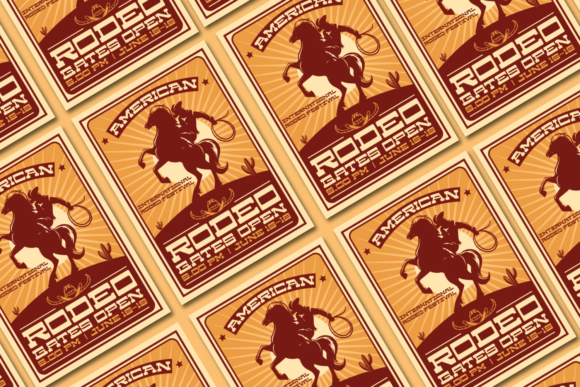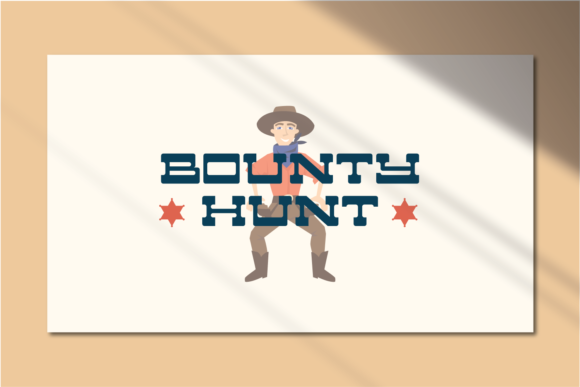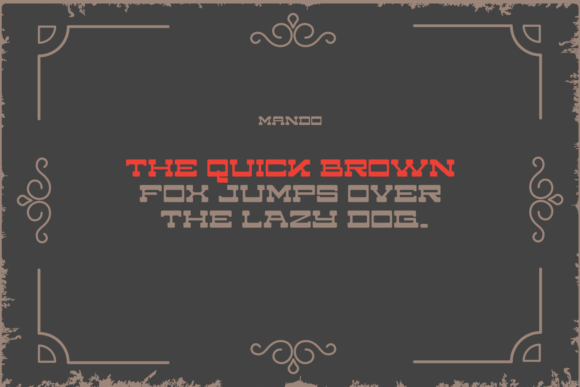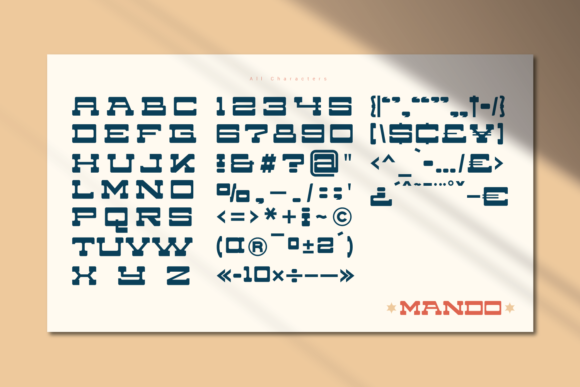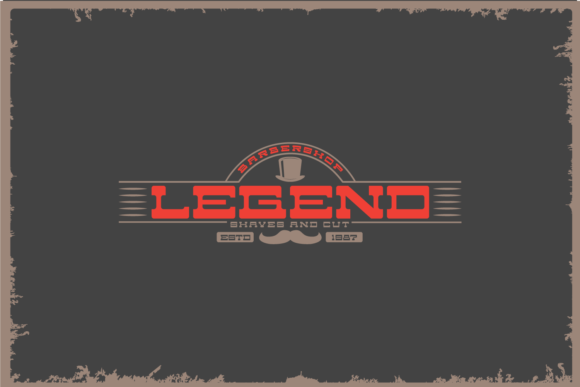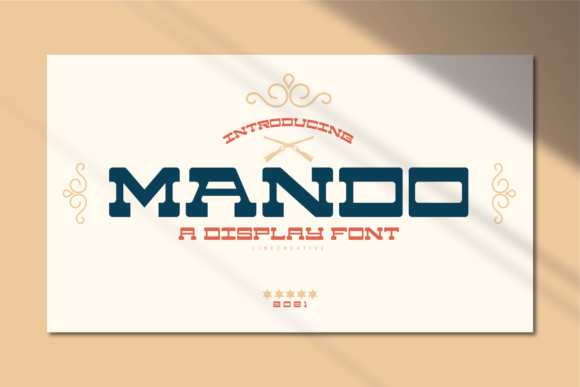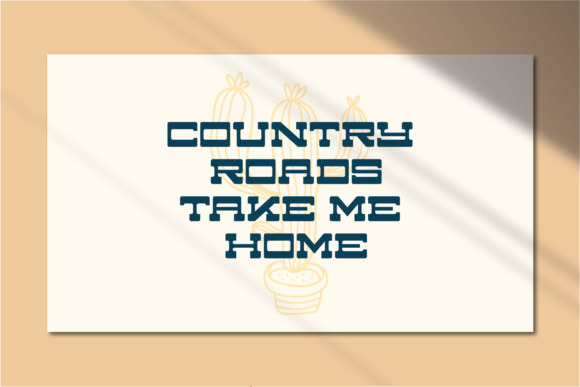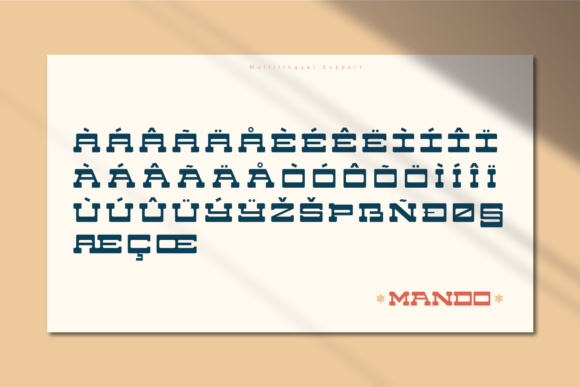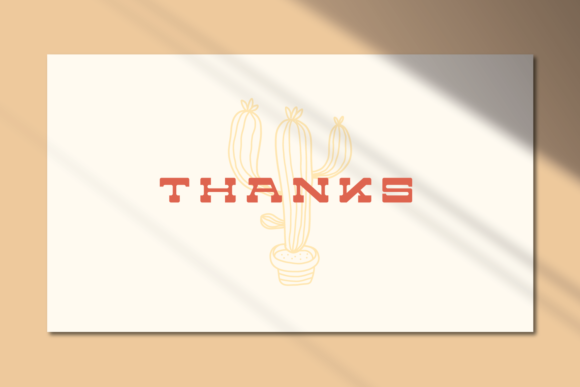
Mando
Mando: A Fun and Fancy Retro-Inspired Slab Serif Font
Mando is a distinctive slab serif typeface that combines fun and fancy elements with a unique retro western flair. This versatile font is designed to elevate a wide range of creative projects to the highest levels.
Key Features of Mando
• Fun Design: Features playful letterforms that add a lively touch to designs.
• Fancy Aesthetic: Incorporates elegant elements for a sophisticated look.
• Unique Weight Bar: Offers a distinctive weight distribution inspired by retro western signs.
• Slab Serif Structure: Maintains the characteristic thick, rectangular serifs typical of slab serif fonts.
• Retro Western Inspiration: Evokes the charm of vintage western signage.
• Versatile Application: Suitable for a wide pool of designs across various contexts.
Ideal Uses for Mando
Mando’s unique characteristics make it particularly well-suited for:
• Vintage-inspired branding and logo design
• Retro-themed poster and advertisement layouts
• Western or Americana-style projects
• Eye-catching headlines and titles
• Packaging design for products aiming for a nostalgic look
• Social media graphics with a fun and fancy twist
When incorporating Mando into your designs, consider the following tips:
• Use for headlines or short blocks of text to maximize its fun and fancy impact
• Experiment with different sizes to highlight the font’s unique weight bar and slab details
• Take advantage of its versatility across various creative ideas
Mando is an excellent choice for designers looking to add a fun, fancy, and retro-inspired slab serif font to their typographic toolkit. Its ability to elevate designs to the highest levels makes it stand out in the world of typography. Whether you’re working on branding, creating layouts for vintage-themed projects, or developing content that requires a touch of western charm, Mando offers the perfect blend of playfulness and sophistication.
Add Mando to your favorite creative ideas and explore how it can bring them to life with its unique style. From eye-catching headlines to impactful branding elements, this font provides the tools to create memorable typography that resonates with audiences seeking a blend of fun, fancy, and retro aesthetics.